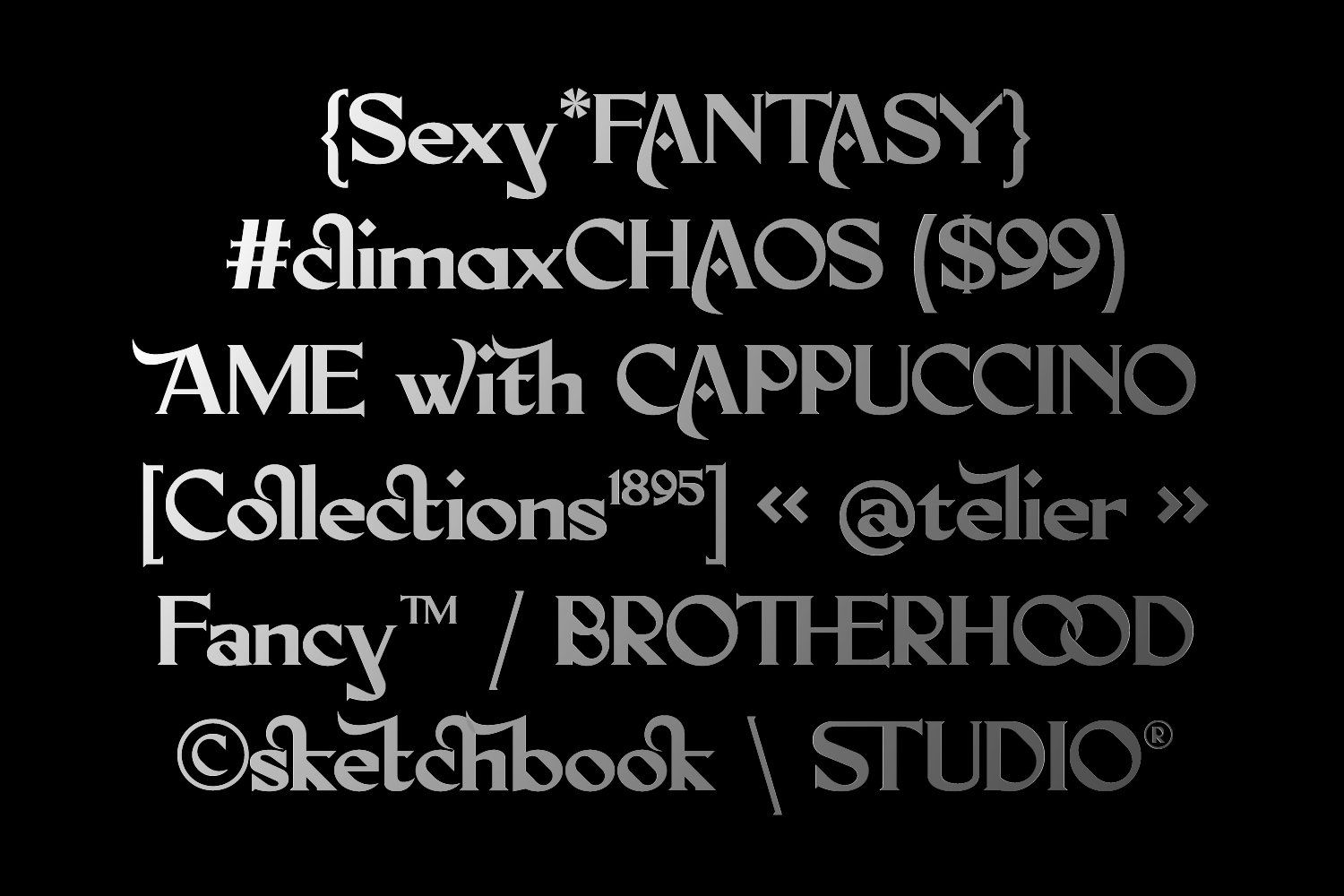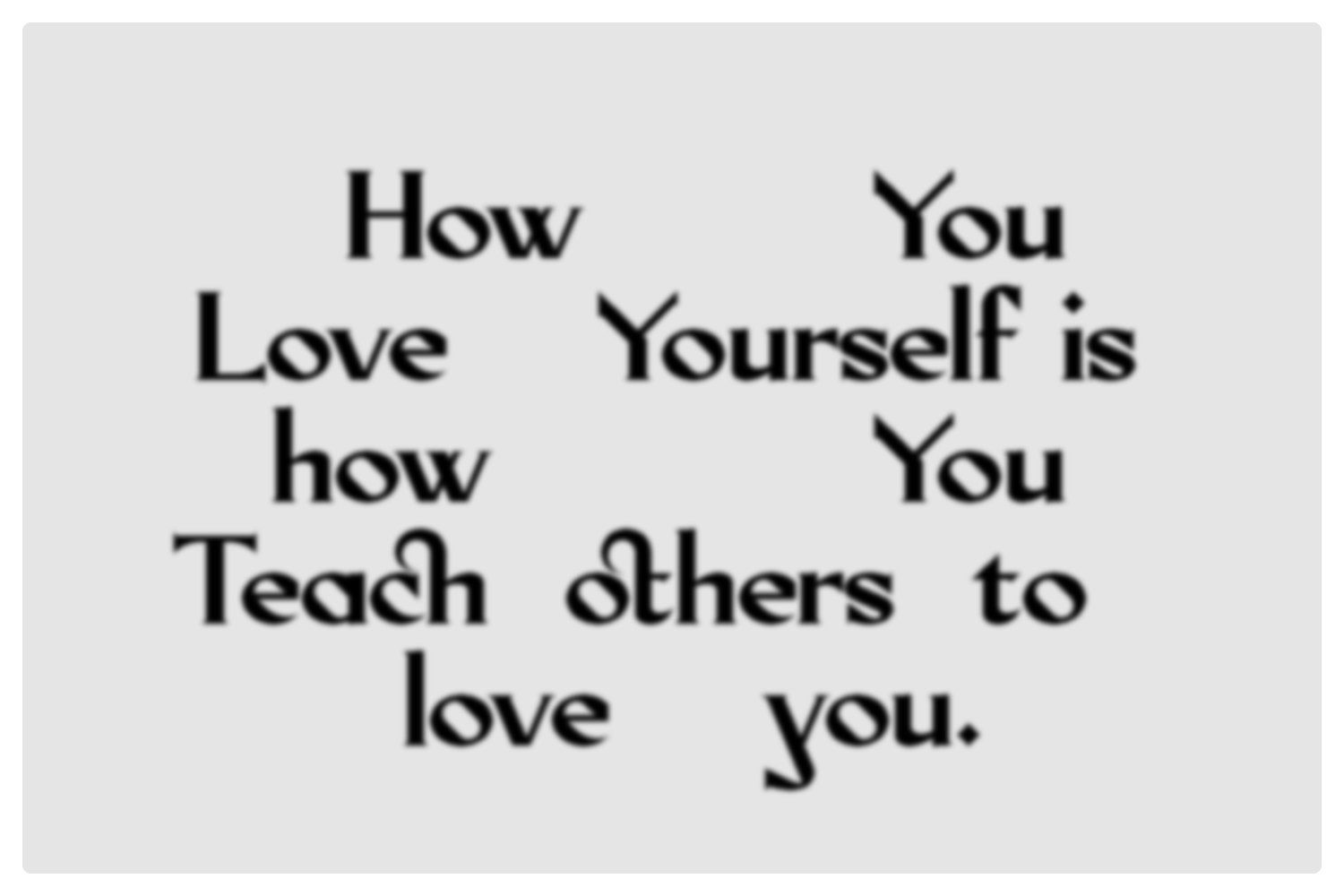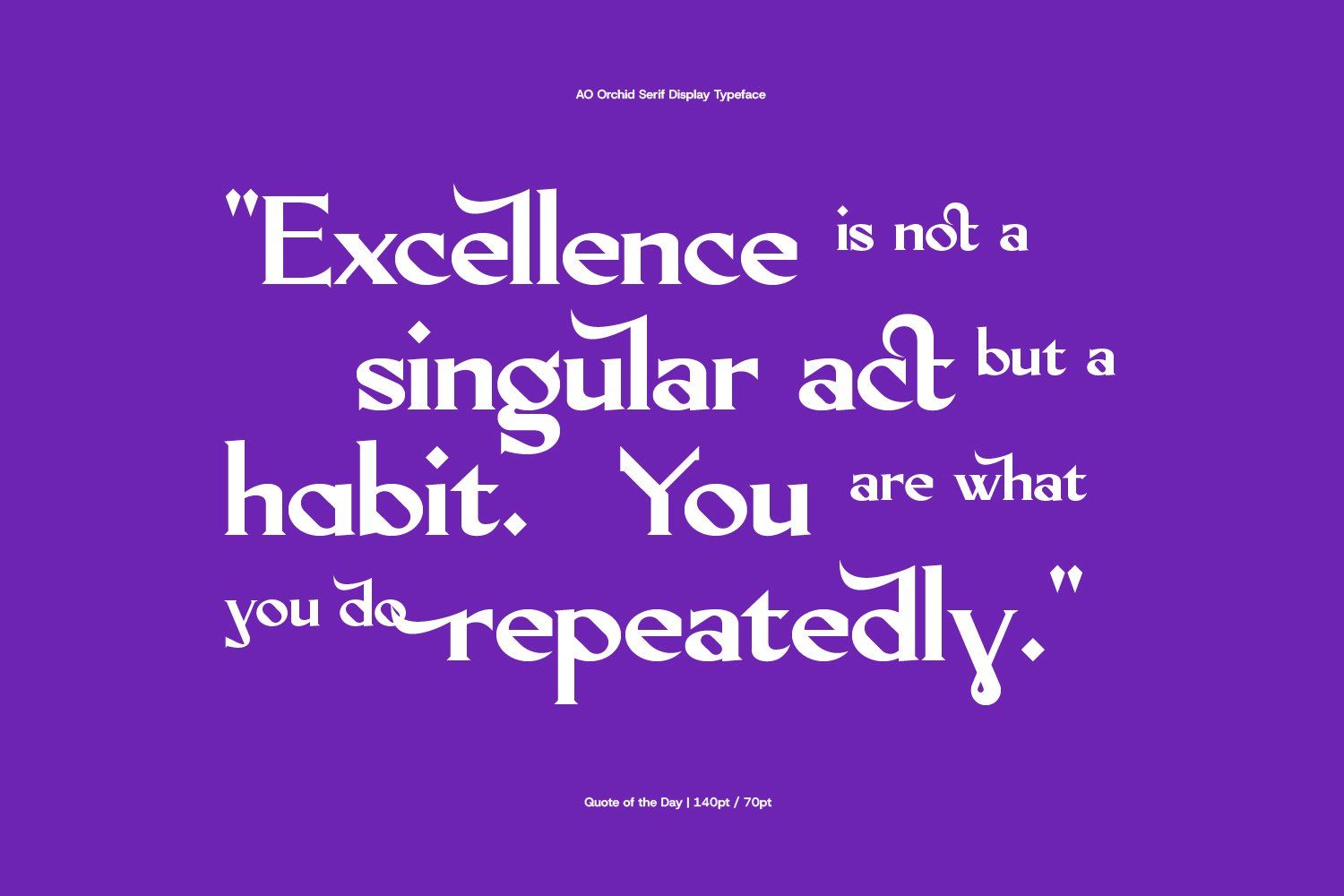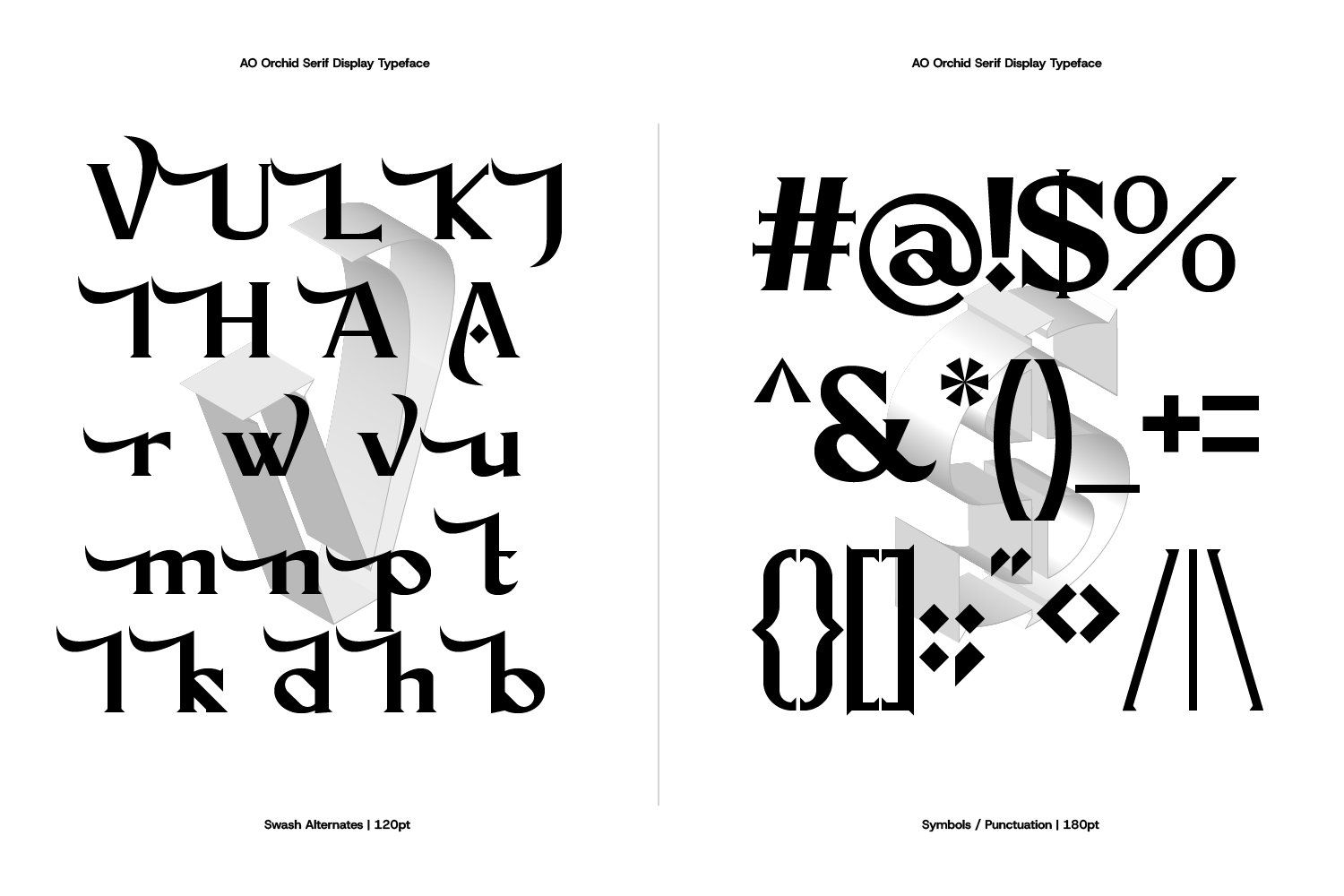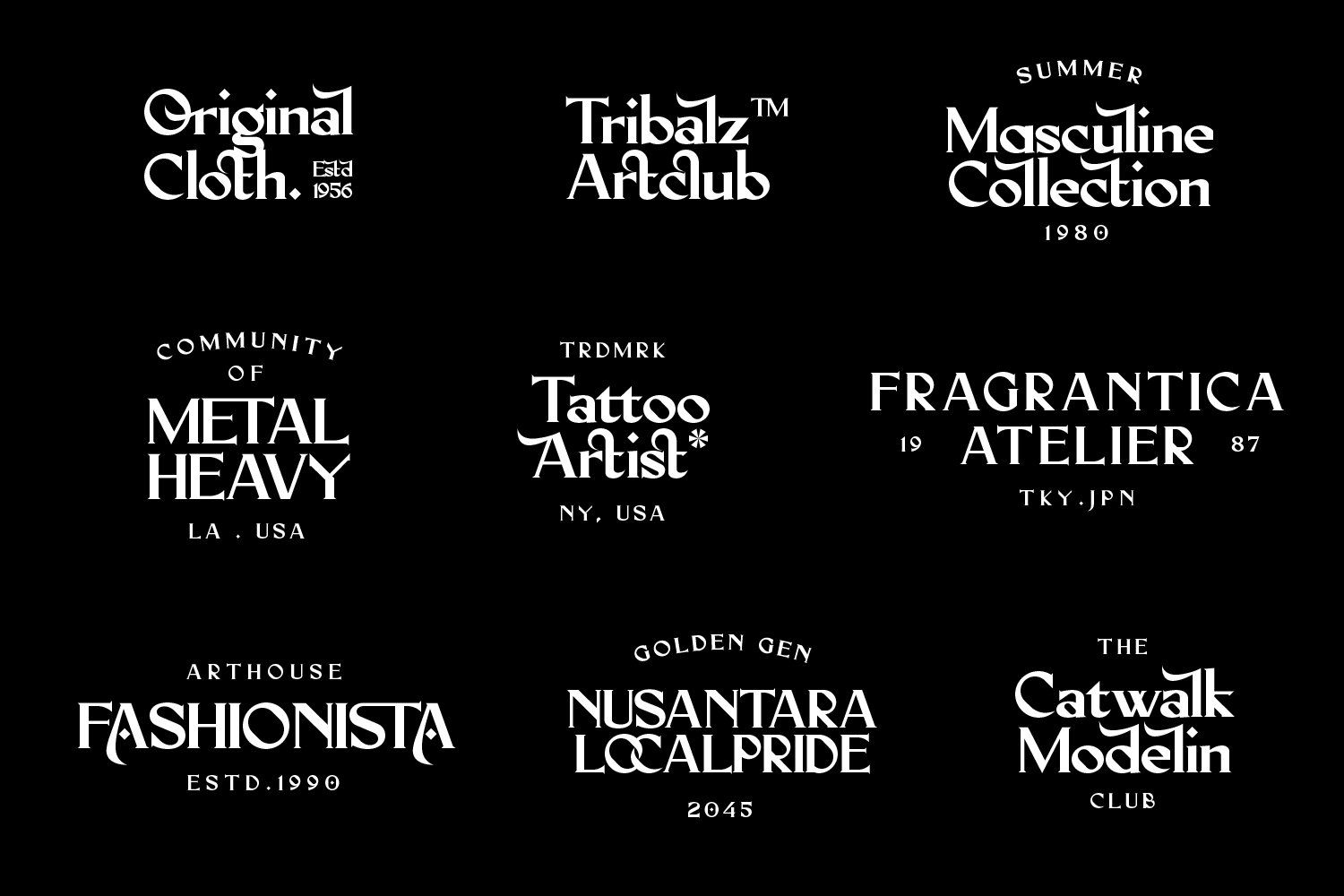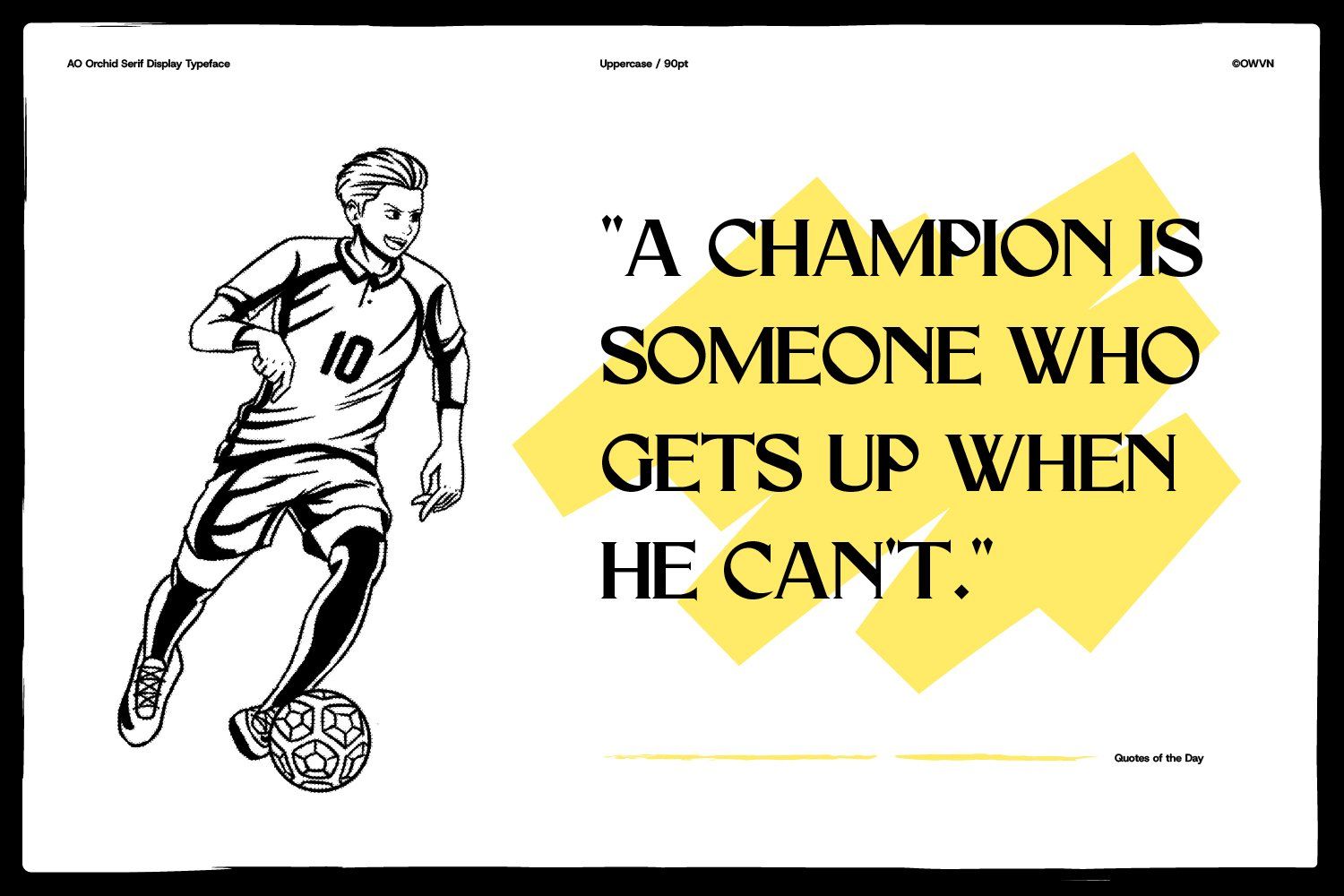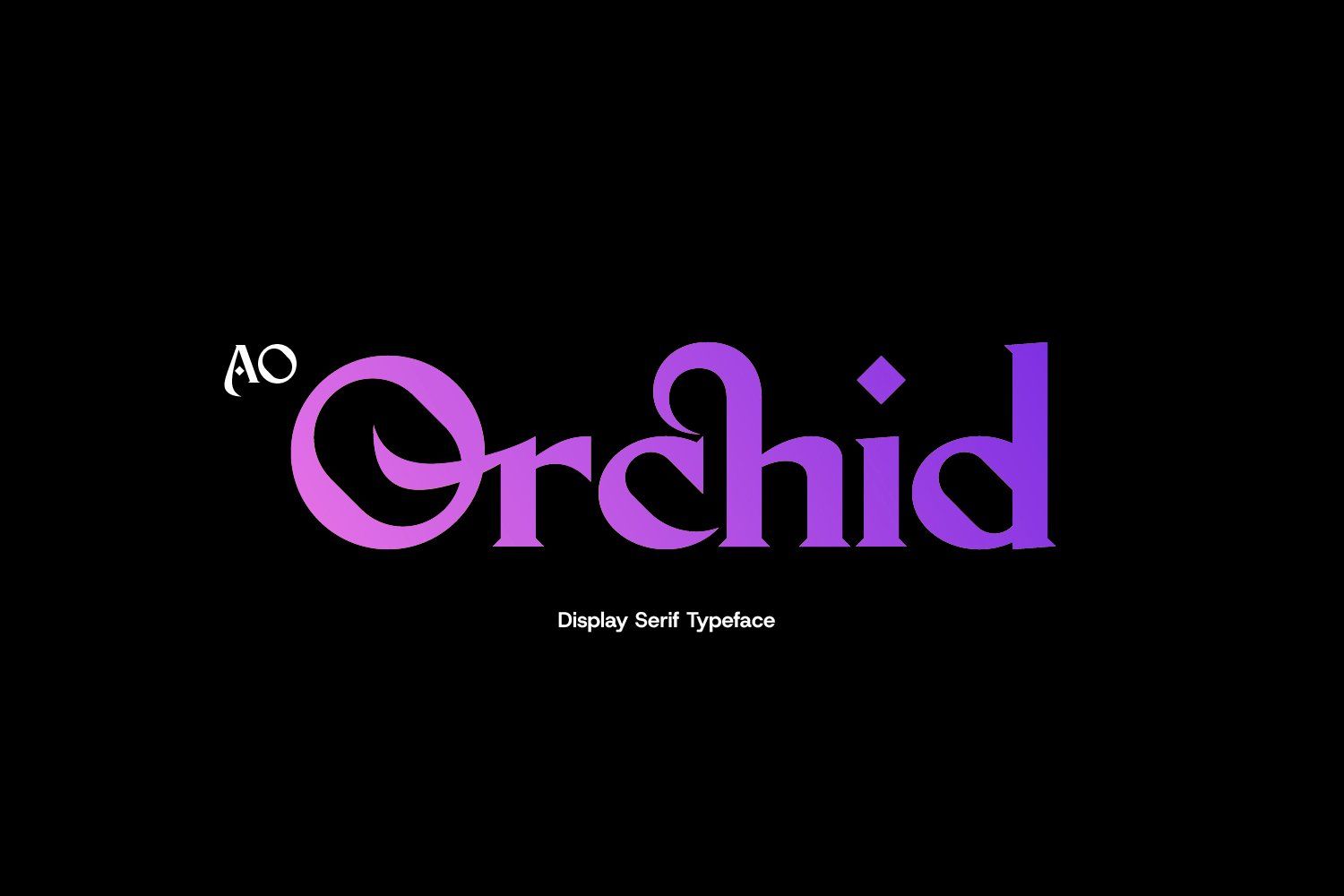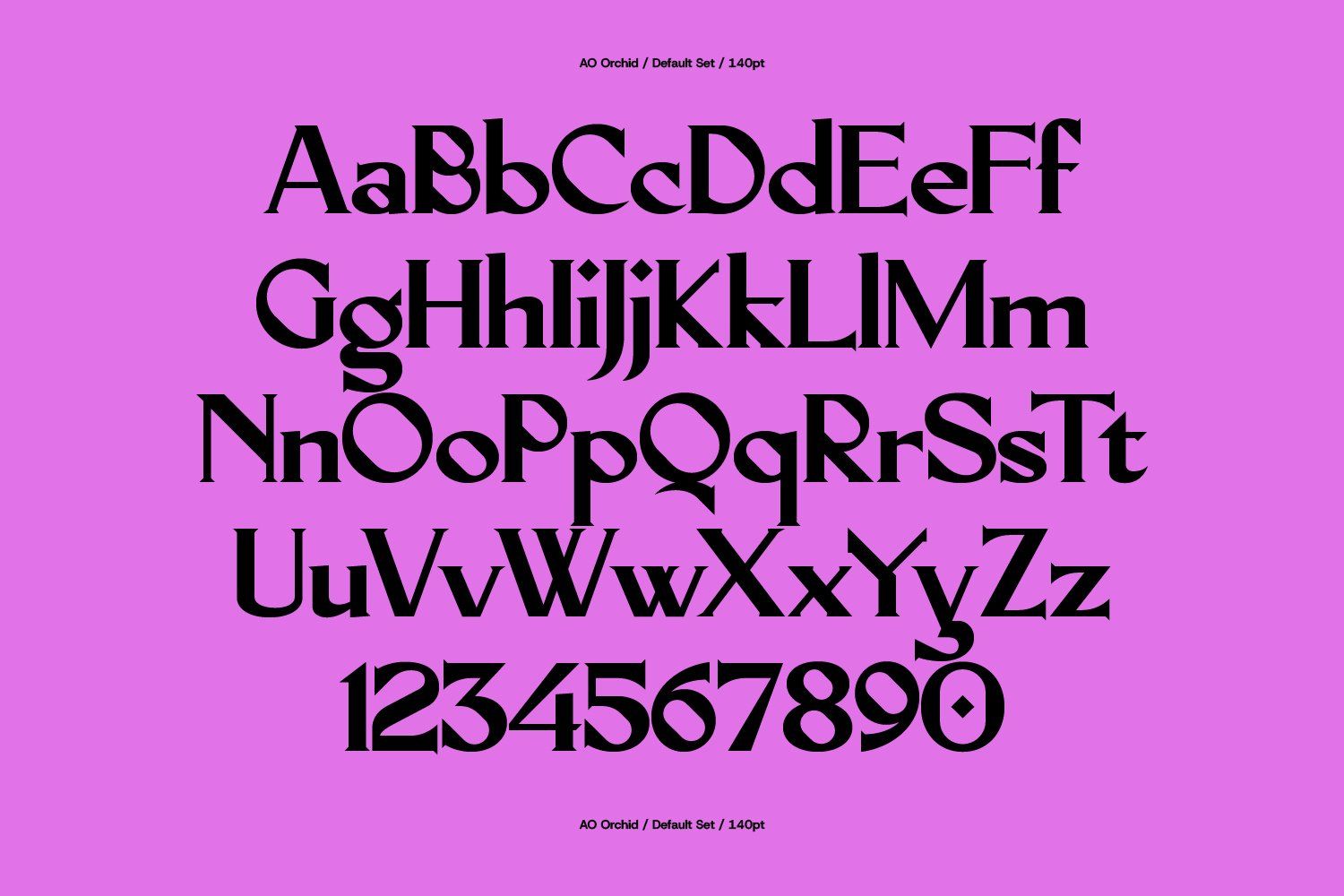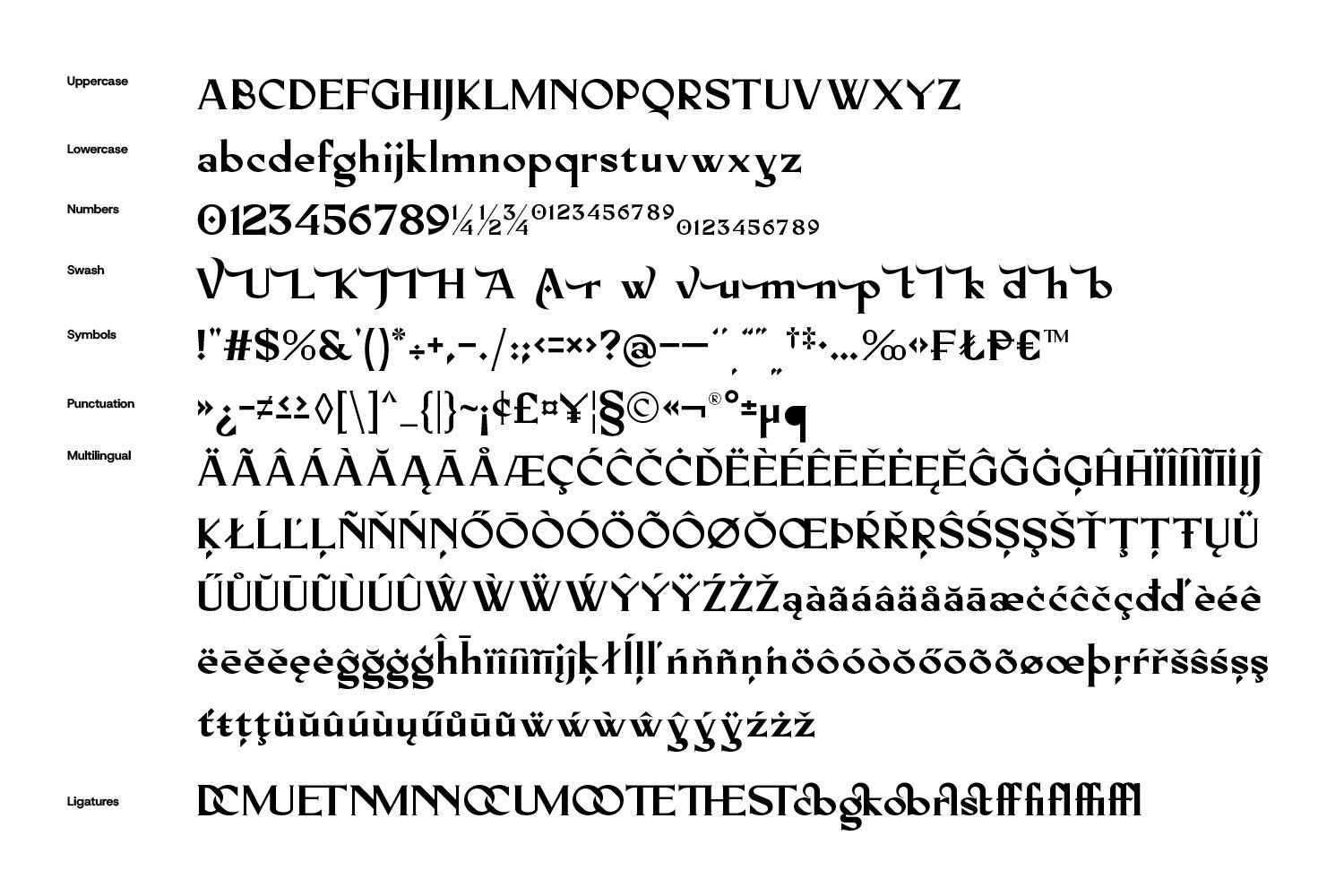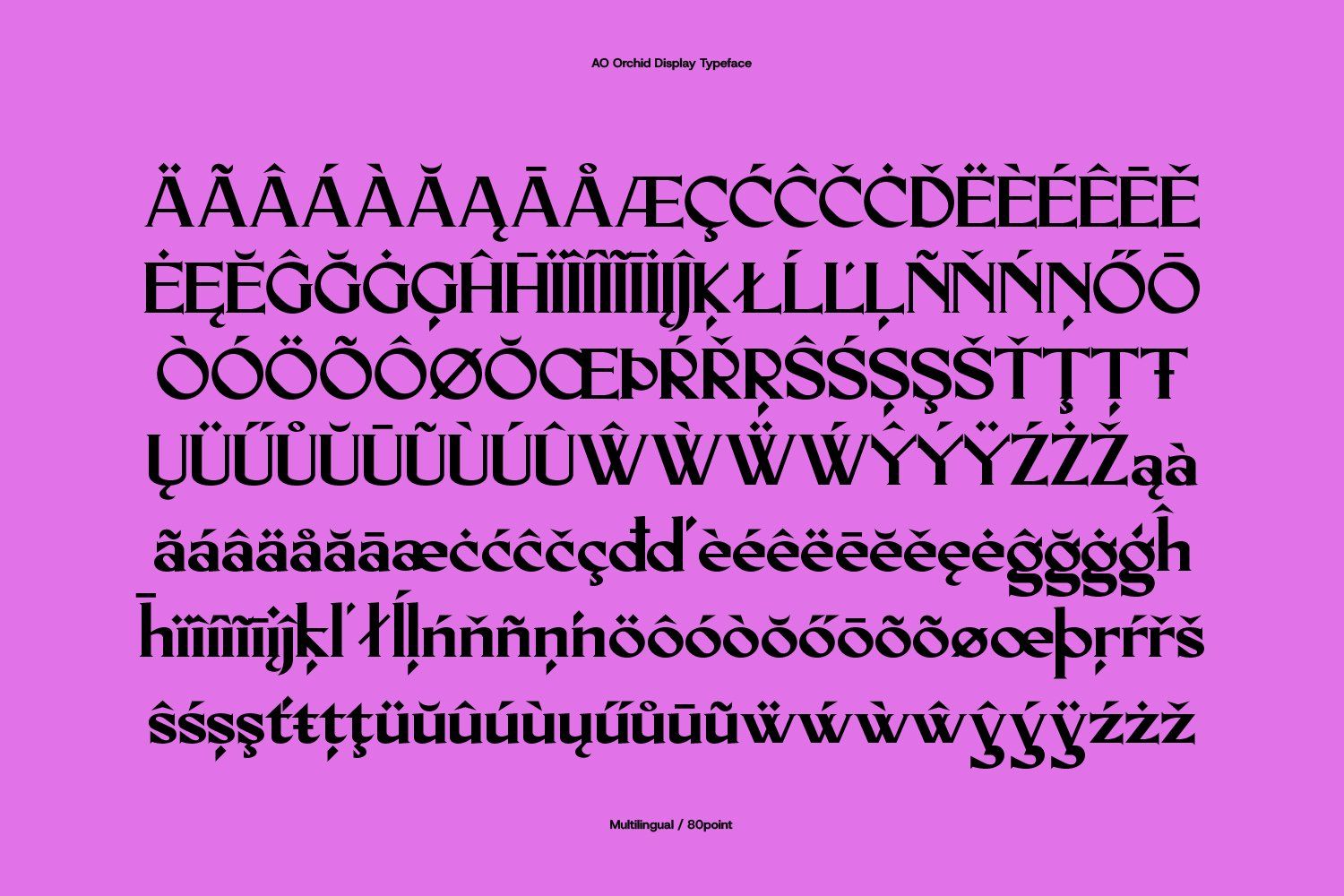
Introducing AO Orchid - a Decorative Display Serif Typeface—it's a font that dances between tradition and modernity. With its bold lines and whimsical flourishes, offering a captivating allure for any display setting. Each letter is meticulously crafted, this AO Orchid brings a bold and modern edge, making it perfect for projects that demand attention.